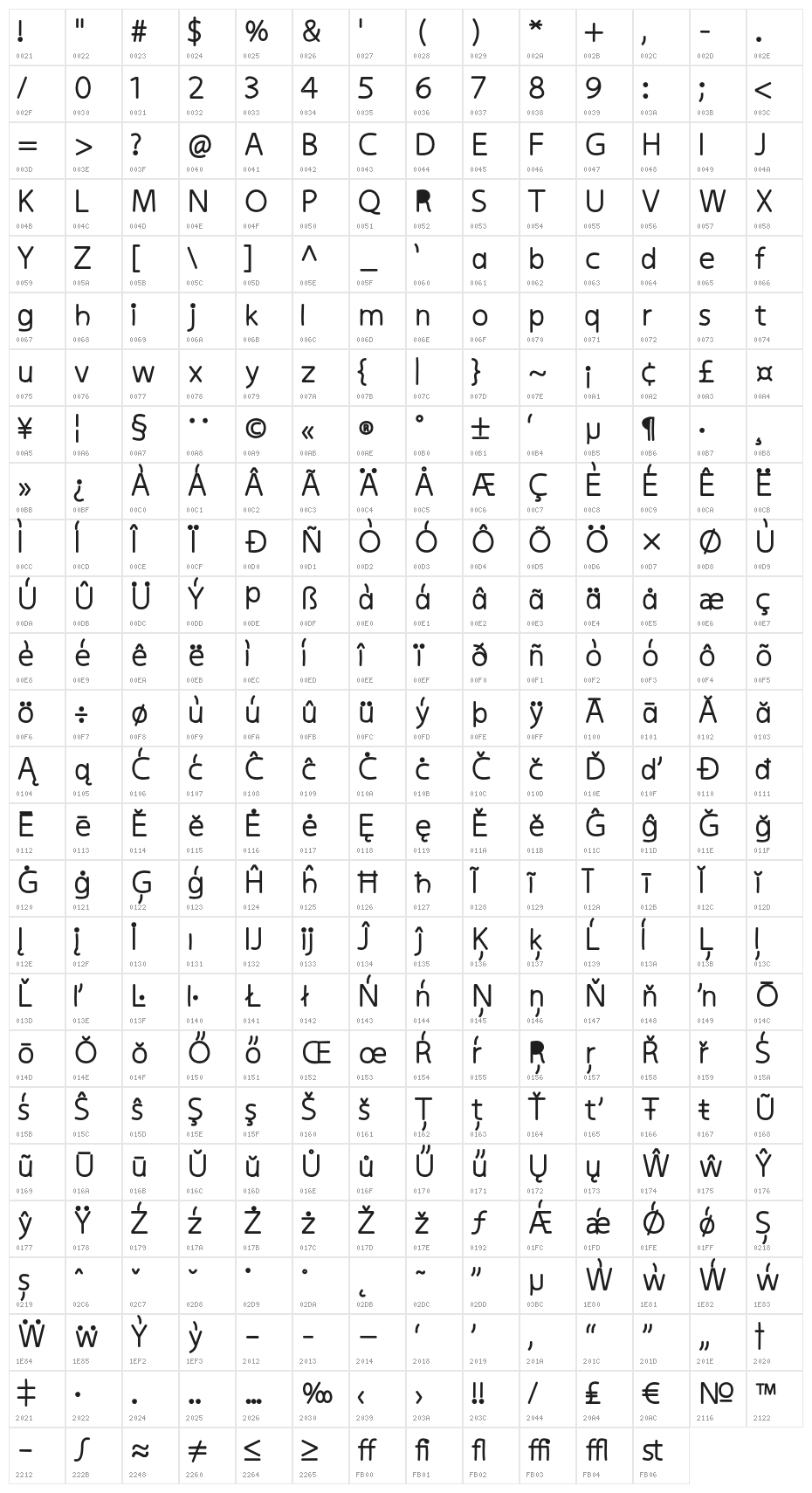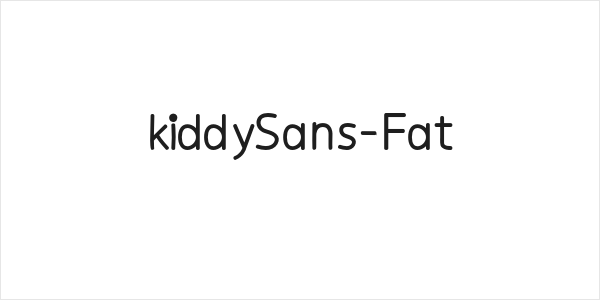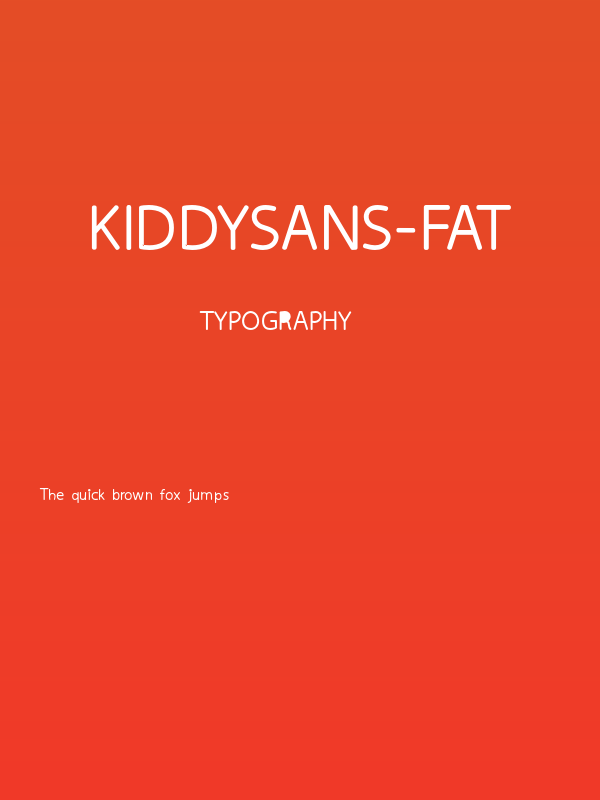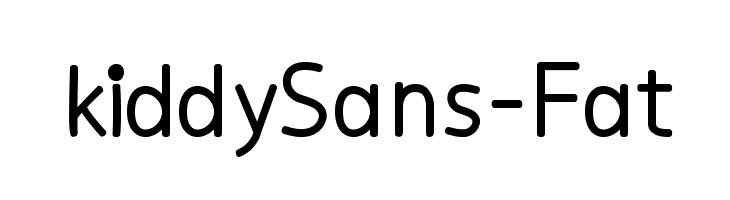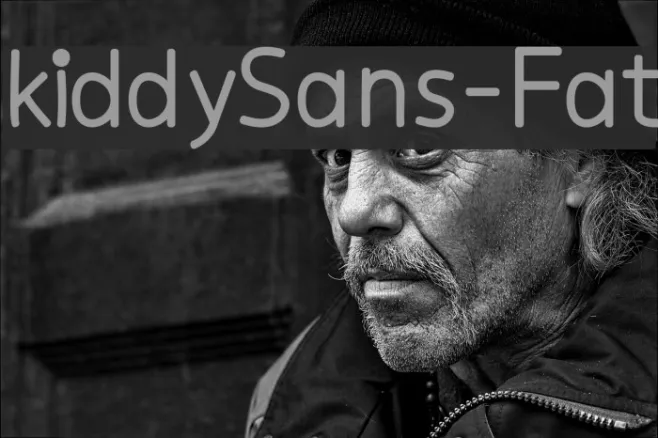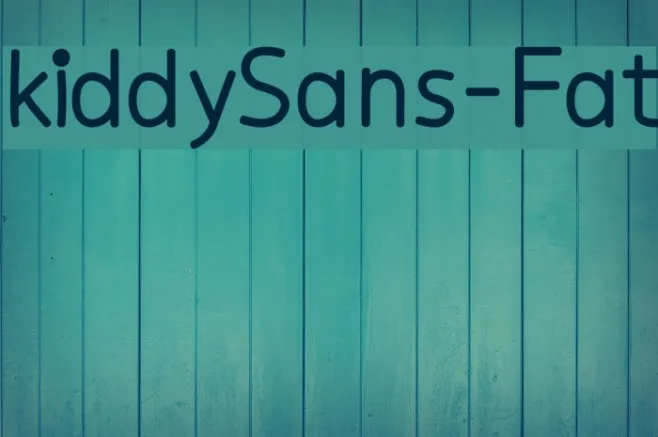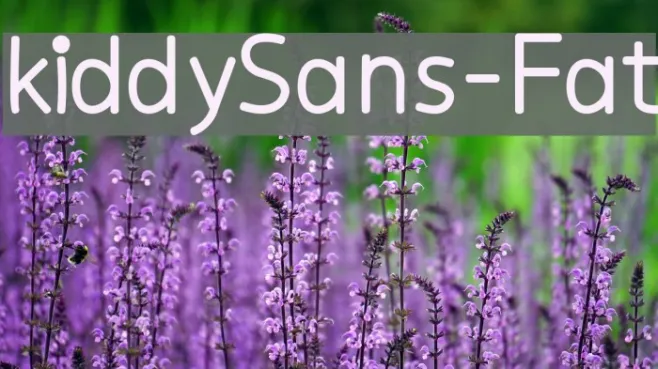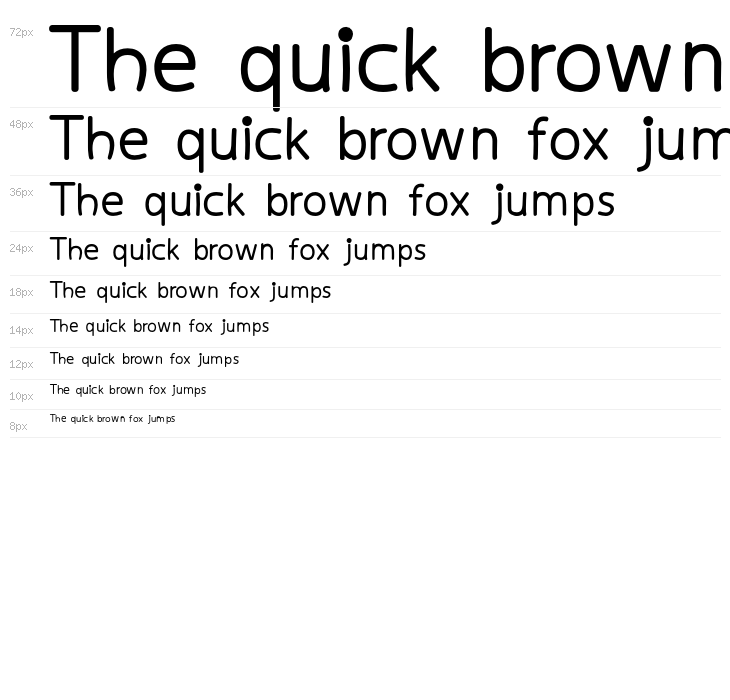
kiddySans-Fat Font
kiddySans-Fat Description
This font features a playful and rounded design, characterized by smooth curves and a friendly appearance. The letters are bold and have a consistent stroke width, giving them a solid and approachable look. The uppercase and lowercase letters maintain a uniform style, with rounded edges that contribute to the font's overall softness. The numerals are clear and easy to read, matching the style of the alphabet. Special characters are included, maintaining the same rounded and bold aesthetic. This font is ideal for projects that require a fun and inviting tone.
| Use Case | Headlines, Logos, Children's materials |
| Proposed Projects | Children's books, playful branding, educational materials, and casual invitations. |